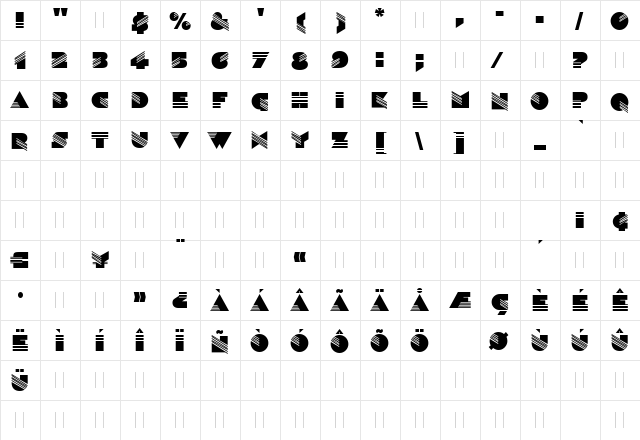
Sinaloa LET Plain
Design Context for Sinaloa LET Typeface
Sinaloa LET is a composed and adaptable typeface that performs quietly and consistently across a wide range of design contexts.